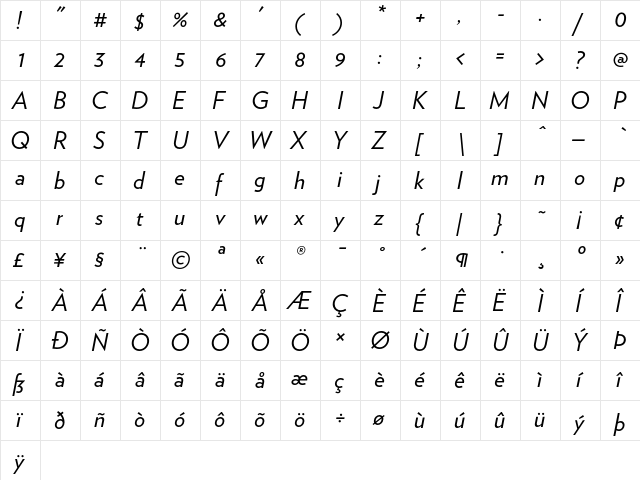
Verlag Book Italic
| Foundry | Hoefler & Frere-Jones |
| Designer | Hoefler & Frere-Jones |
Design Context for Verlag Typeface
Verlag offers clean, dependable letterforms without strong stylistic allegiance, making it a practical choice for designers who need flexibility. Its italic angle brings a sense of urgency and motion to the letterforms.
Pro Tip: Try Verlag for annotation and caption copy alongside an upright companion — the contrast in angle creates a dynamic but ordered typographic system.